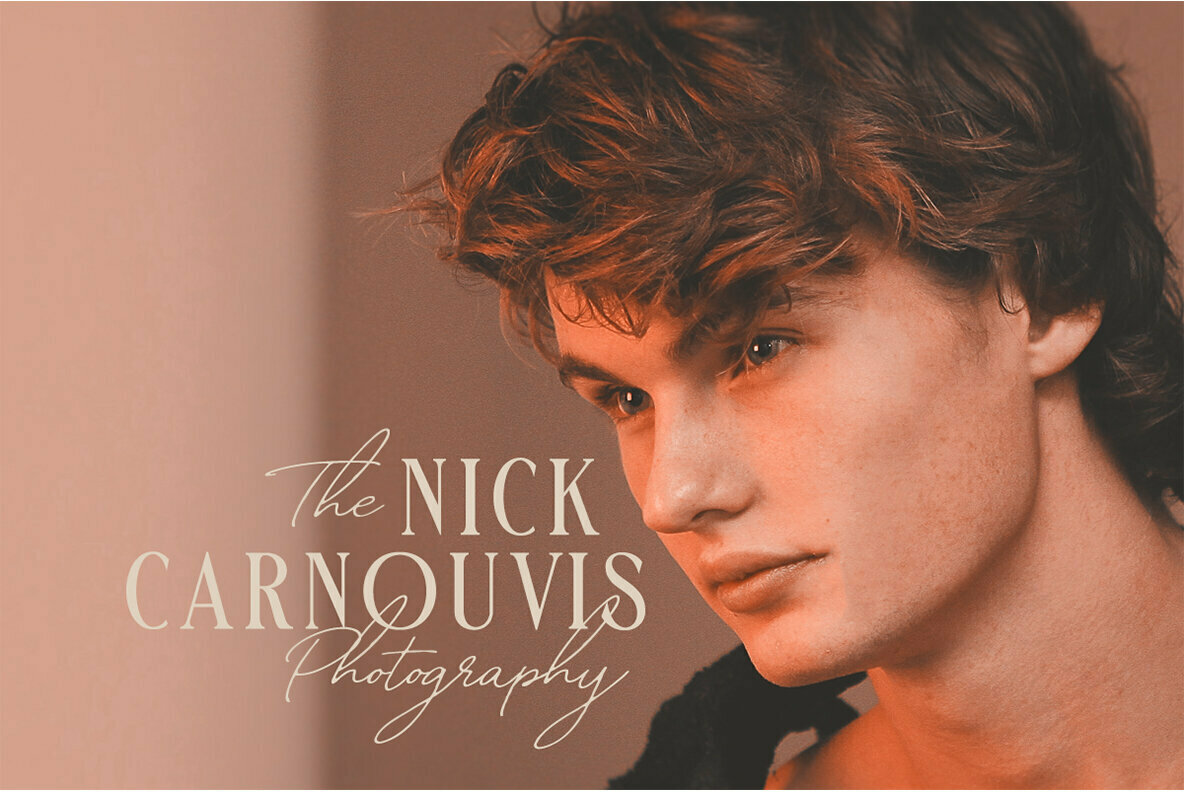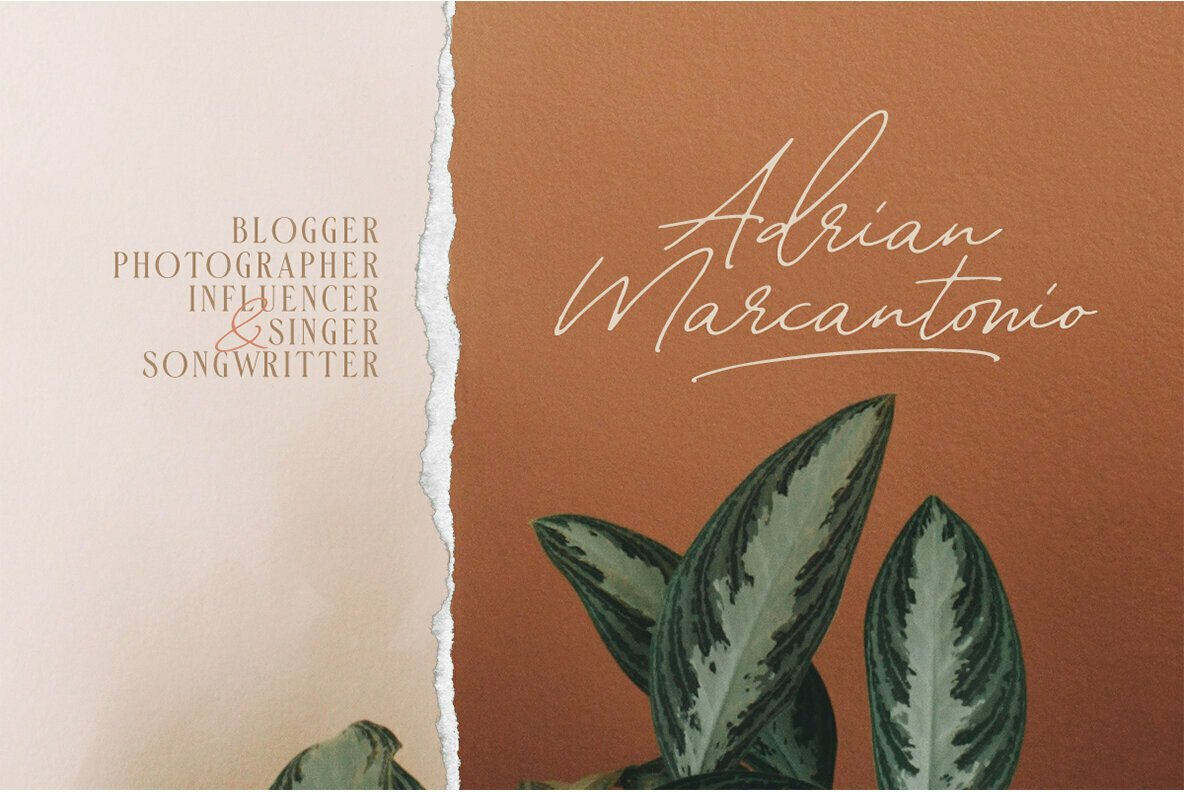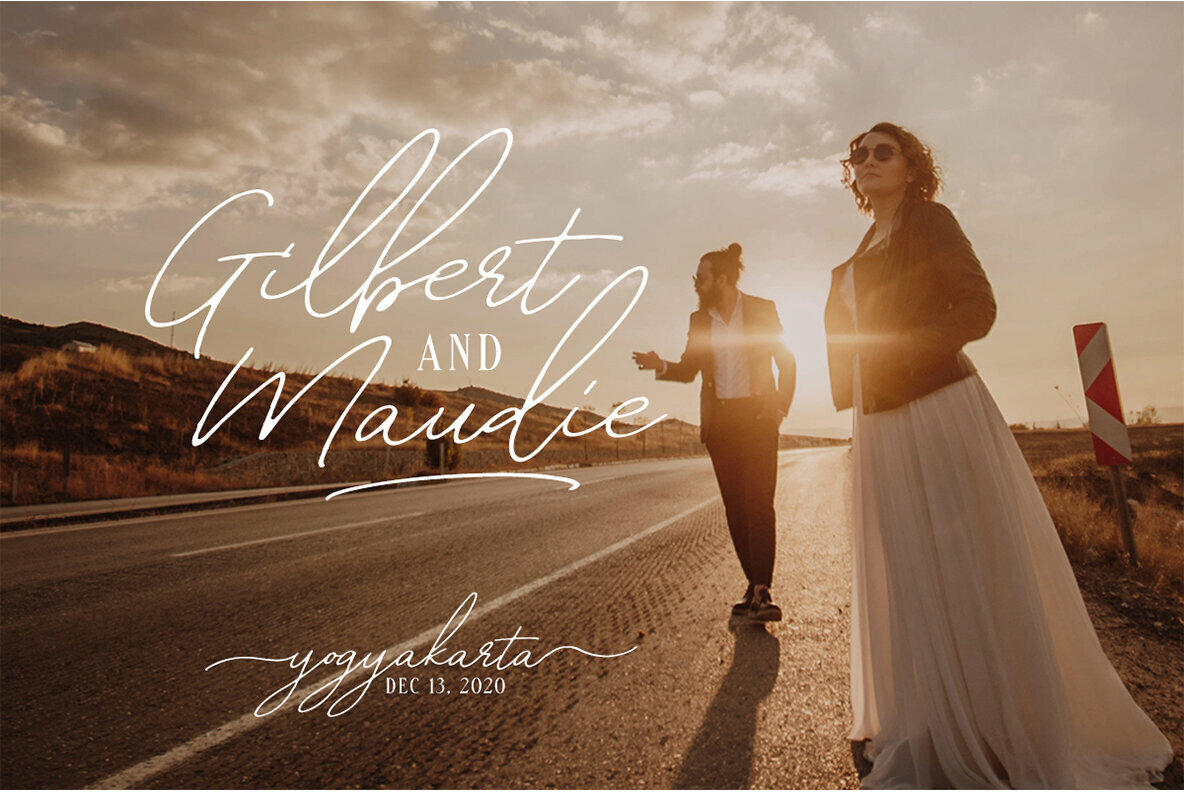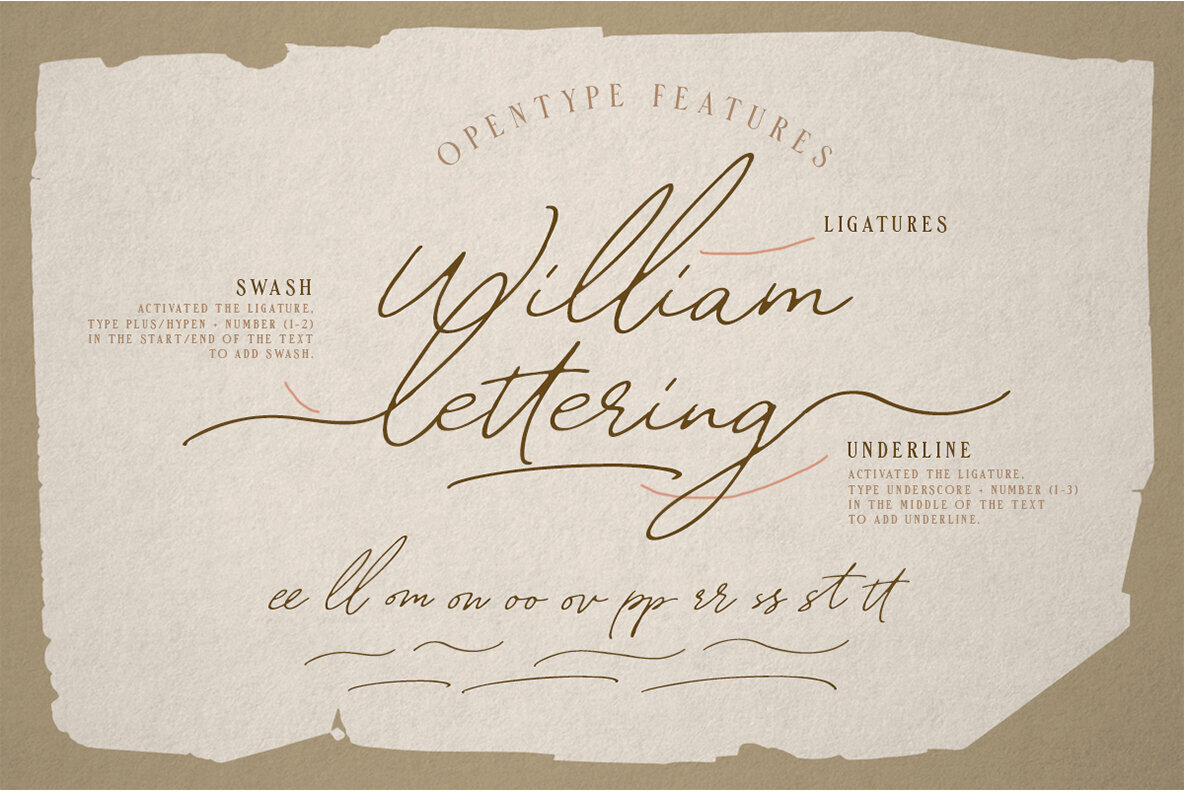
William Letter Font Duo
William Letter Serif
William Letter Signature
The William Letter font duo by Letterhend Studio combines two distinct styles: a signature script and a serif. This versatile pair creates an elegant and clean aesthetic, making it an ideal choice for headlines, logotypes, apparel design, invitations, branding, packaging, and advertising projects.William Letter: Signature Script and Serif Duo